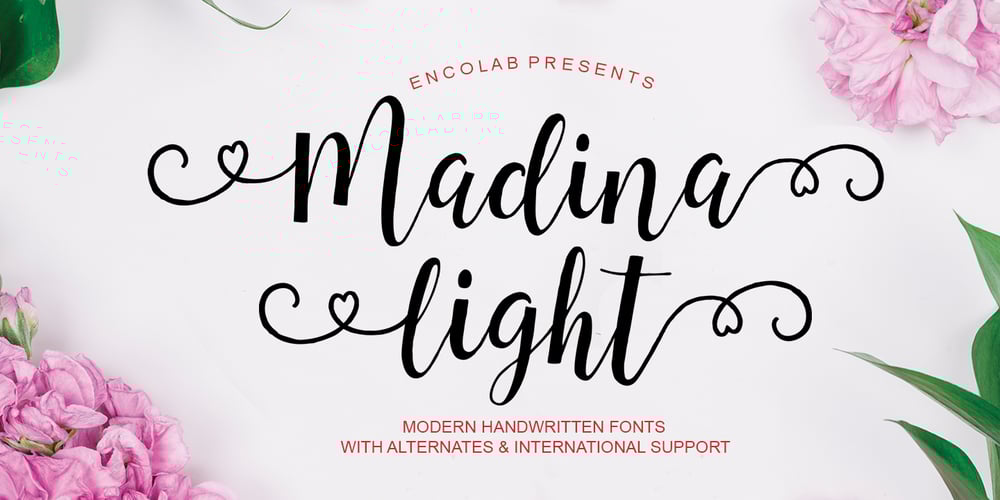
Madina Light Font Family was designed by Saiful and published by Encolab. Madina Light contains 2 styles and family package options. Madina Light is a handwritten script font with varying baseline, which is designed to convey elegance and style. Can be used for various purposes such as posters, logos, t-shirt, signage, businnes card, magazines, book cover, wedding invitation, greeting cards etc. To enable the OpenType Stylistic alternates, you need a program that supports OpenType features such as Adobe Illustrator CS, Adobe Indesign & CorelDraw X6-X7.To enable the OpenType Stylistic alternates, you need a program that supports OpenType features such as Adobe Illustrator CS, Adobe Indesign & CorelDraw X6-X7, Microsoft Word 2010 or later versions. and there are additional ways to access alternates/swashes, using Character Map (Windows), Nexus Font (Windows), Font Book (Mac) or a software program such as PopChar (for Windows and Mac).Thank you!